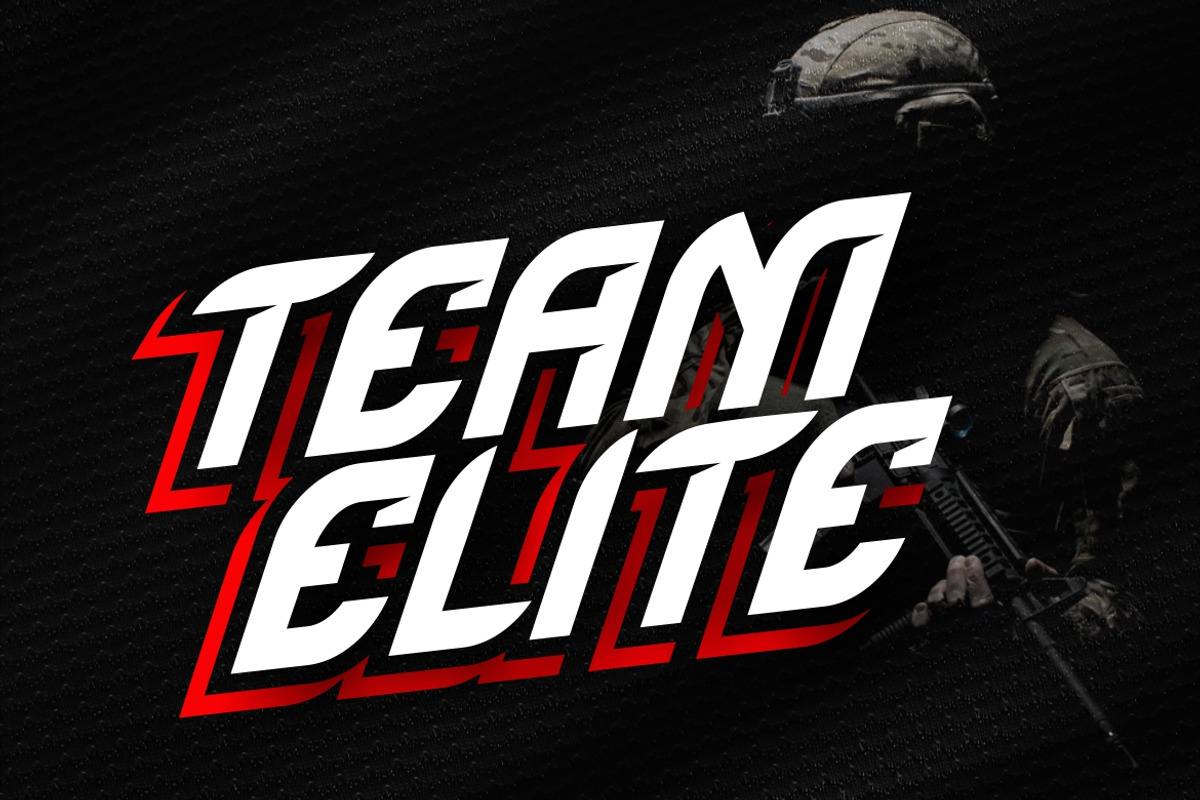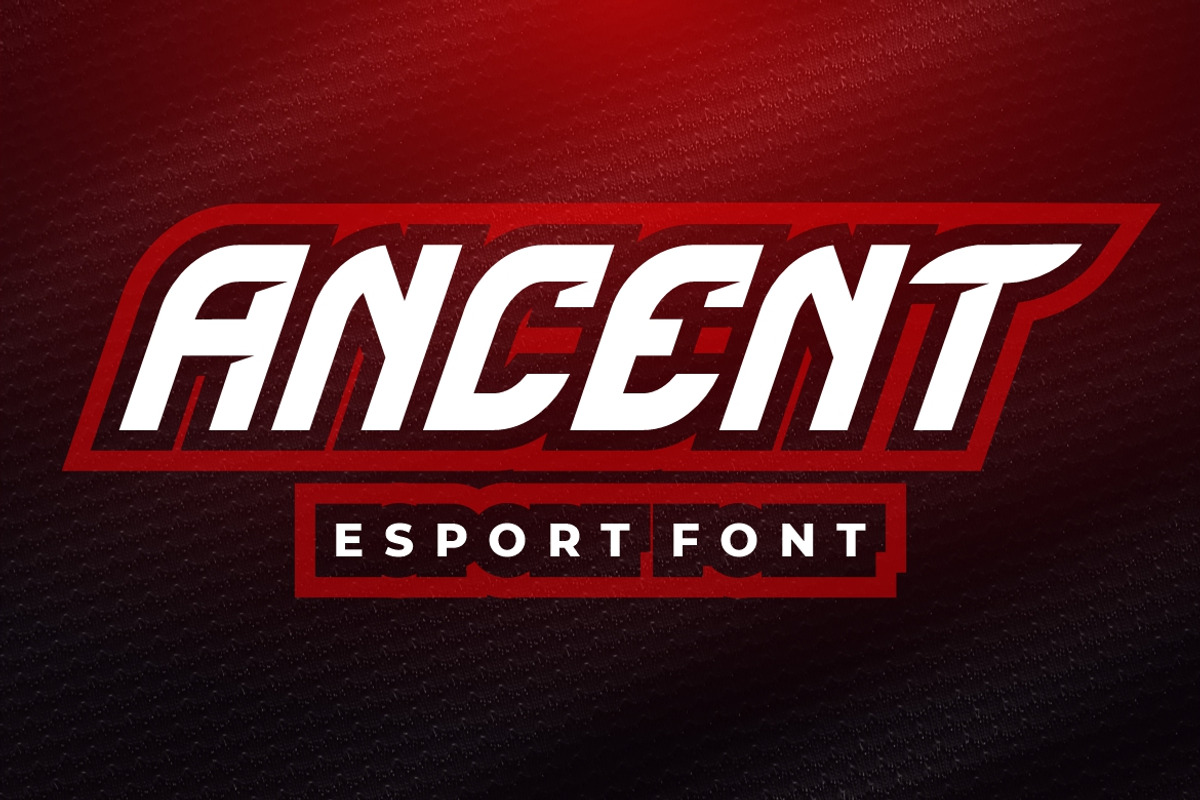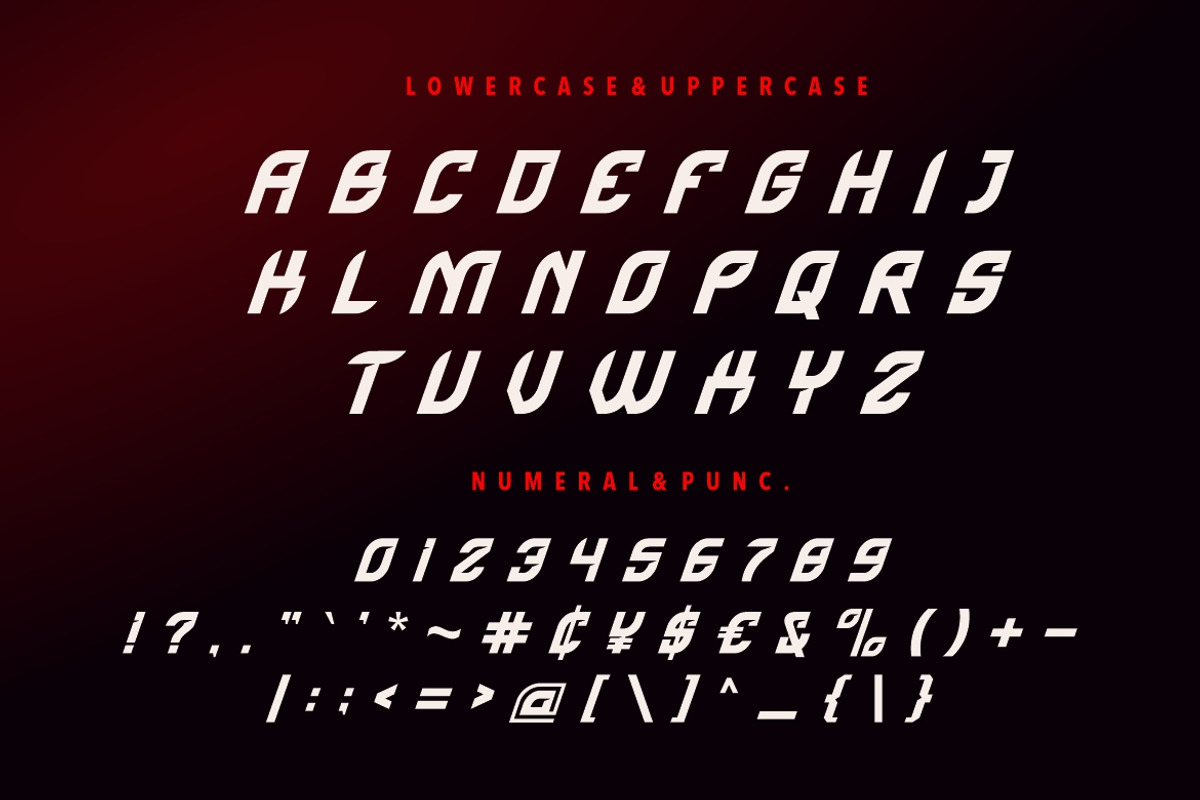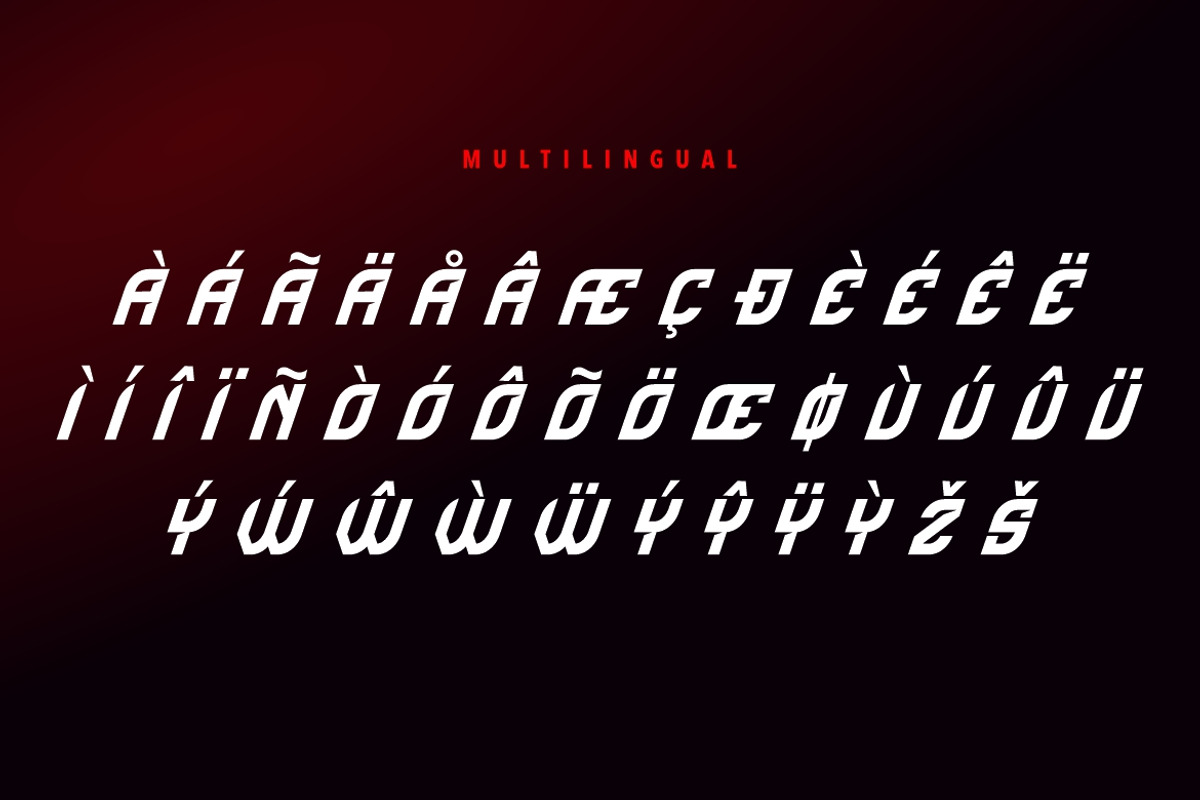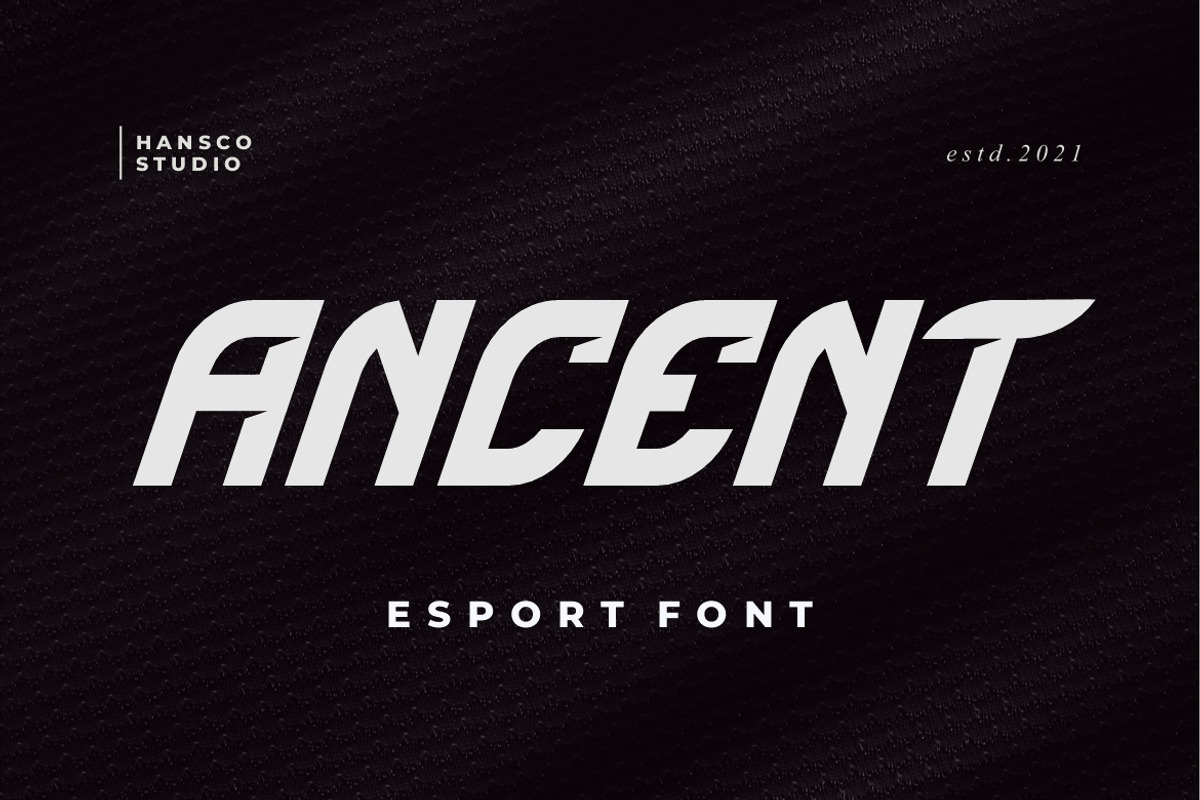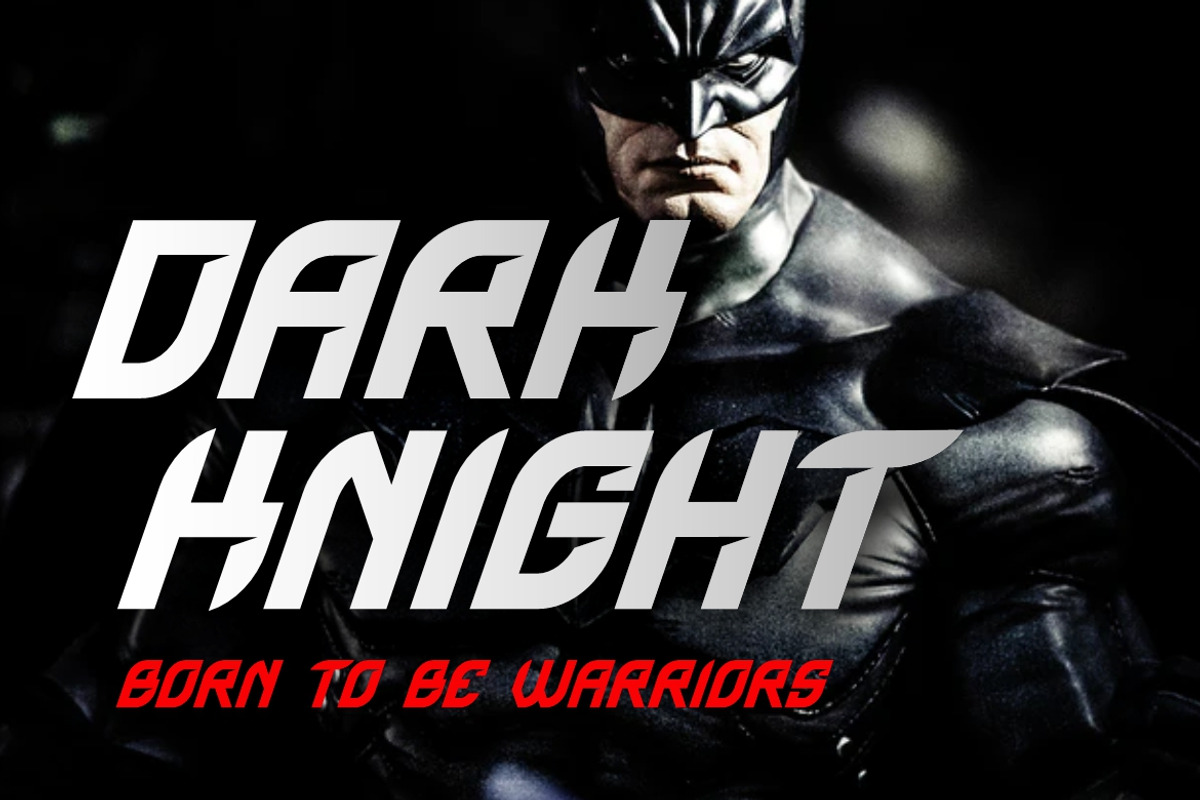
Ancent - Esport Font
Ancent is a sharp italic font with unique style that will make your design looks modern, geometric and futuristic. Designed with the utmost care and professionalism, this font will make a great choice in any design project you are working on. This will add to the image of a tough, fast and strong character in any way. You can use this font for any purpose, especially to make logotype like a technology, sports or e-sport logo brand, headlines, t-shirt, label, name card, badge, poster, sci-fi, modern economy and more recent themes. This typeface is comes in ALL CAPS, punctuation, symbols, numerals, etc also support multilingual in all caps.
• All Uppercase ( No Lowercase ) • Number • Punctuation • Multilingual Supports